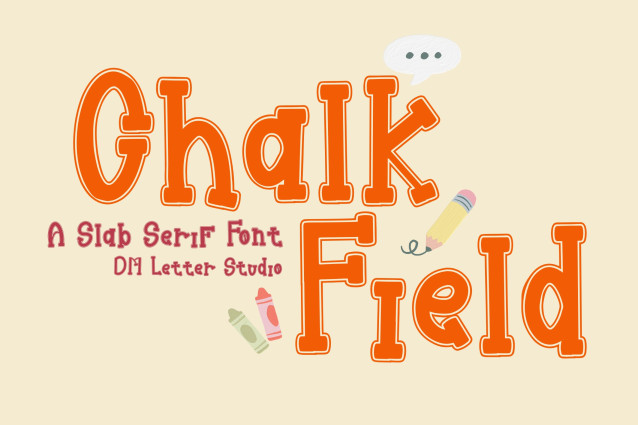
Chalk Field Font
Chalk Field Font is a playful yet structured slab serif font inspired by chalkboard lettering and classroom nostalgia. With bold serifs, rounded corners, and a slightly textured appearance, this font strikes a balance between friendliness and formality—perfect for educational materials, retro branding, and fun typographic designs.